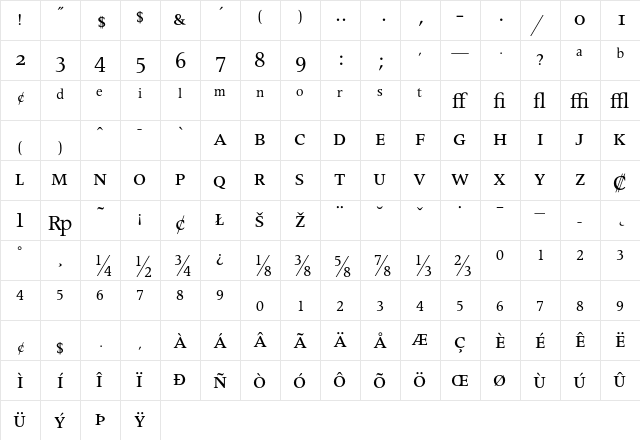
Apollo MT Expert
Design Context for Apollo MT Typeface
Apollo MT offers clean, dependable letterforms without strong stylistic allegiance, making it a practical choice for designers who need flexibility.
Pro Tip: Use Apollo MT in both headline and body roles to test its range before committing to a single application.